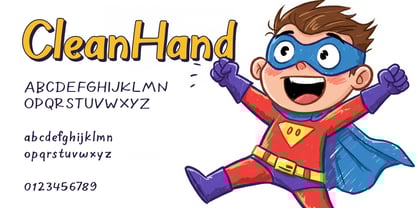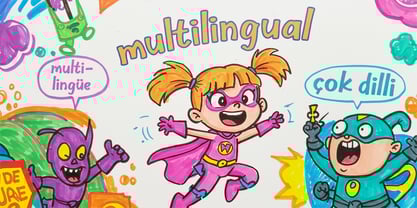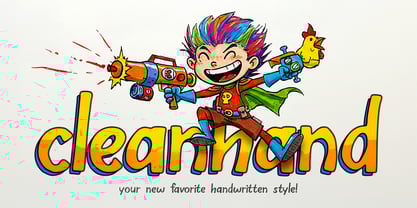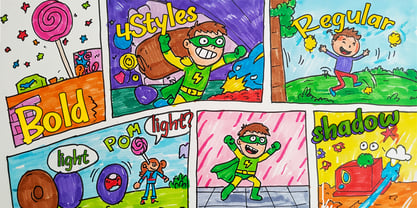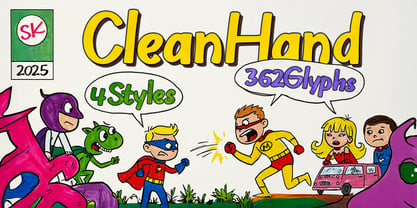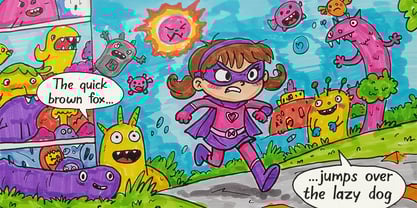
SK CleanHand
by Salih Kizilkaya
The SK CleanHand Font Family was designed by Salih Kizilkaya and published by Salih Kizilkaya. SK CleanHand contains 4 styles and family package options. More about this family
SK Clean Hand is a meticulously designed handwritten typeface that combines the organic charm of pen-drawn letters with a sleek, contemporary finish. Available in four distinct styles—Light, Regular, Bold, and Shadow—this font offers versatility for a wide range of creative projects. Each style includes 362 carefully crafted glyphs, ensuring robust support for multilingual designs and unique typographic needs. With its smooth strokes, balanced proportions, and finely tuned kerning, SK Clean Hand delivers a clean yet authentic handwritten aesthetic. Perfect for branding, logos, invitations, or editorial work, this typeface brings warmth and personality to your designs while maintaining exceptional legibility. Whether you need the subtle elegance of Light, the confident presence of Bold, the playful depth of Shadow, or the timeless feel of Regular, SK Clean Hand adapts effortlessly to your vision.